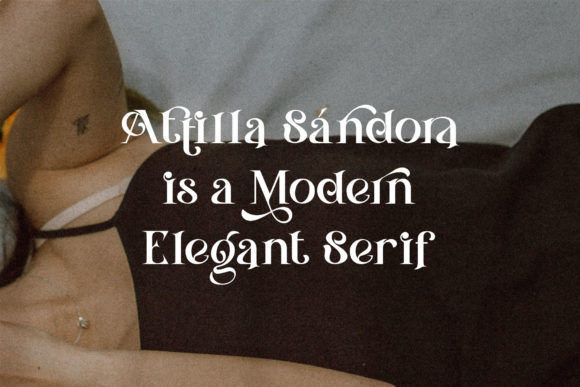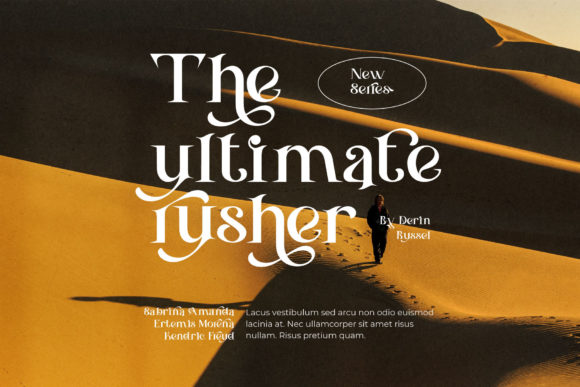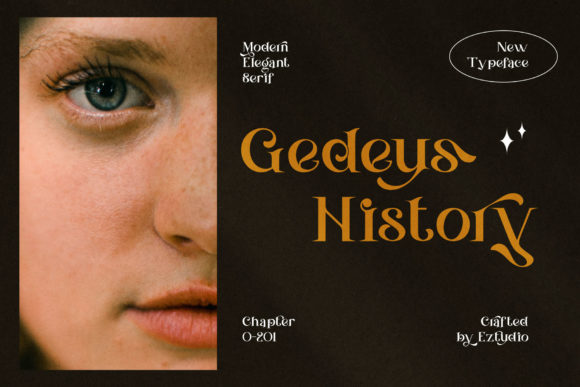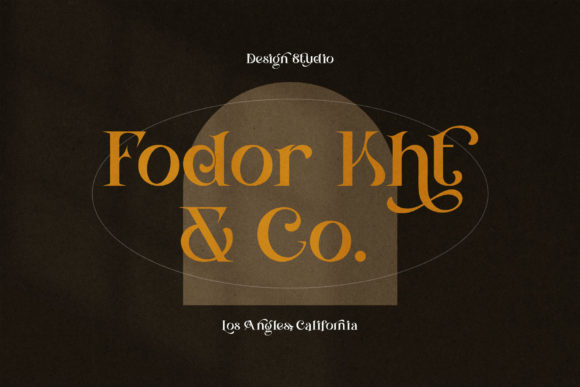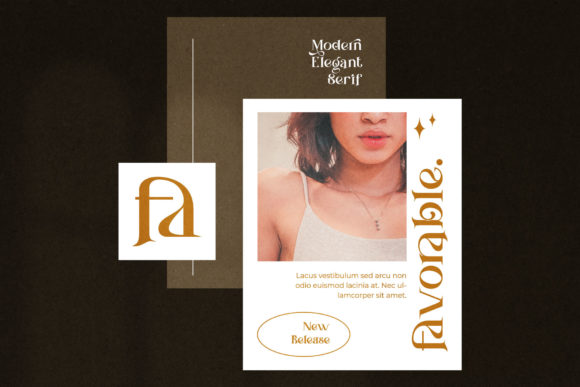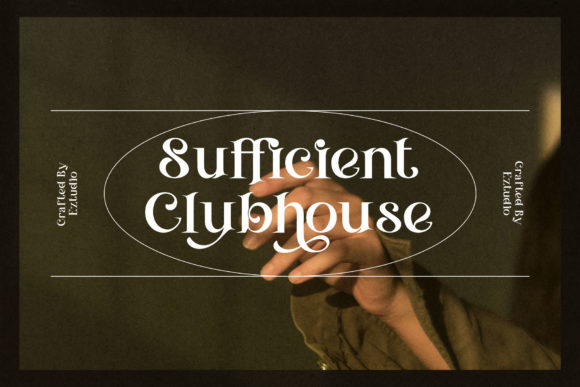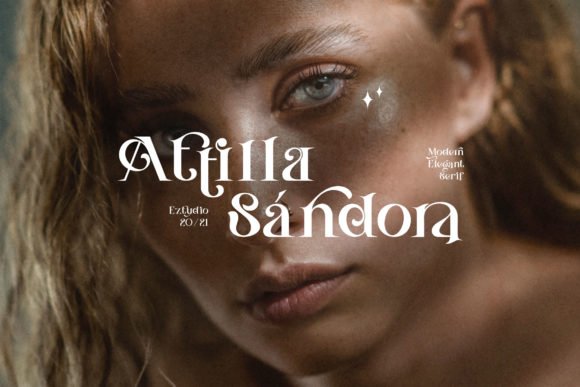
Unleashing Creativity with Attilla Sándora Font
Have you ever stared at a blank canvas, a blank page, or even a blank screen, waiting for inspiration to strike? It’s that moment when the world around you fades away, and all that’s left is the thrill of creating something new. It’s a feeling that drives designers, artists, and writers to push the boundaries of their craft.
When that spark of creativity hits, you need a font that can keep up. That’s where Attilla Sándora Font comes in – a modern, elegant, and highly detailed serif font that’s as imposing as it is beautiful. Its uniquely shaped letters make it the perfect choice for designers who want to add a distinct touch to their creations.
With Attilla Sándora Font, the possibilities are endless. Whether you’re designing a book cover, a logo, or a website, this font is sure to make a statement. Its versatility and sophistication make it a valuable tool for designers who want to take their work to the next level.
Attilla Sándora Font Key Features
- Unique Characteristics: Attilla Sándora is a unique, hand-drawn font with a distinctive, elegant feel and a wide range of stylistic options.
- Font Metrics: The font’s x-height, cap height, and ascender/descender metrics are carefully designed to ensure optimal readability and legibility.
Review of Attilla Sándora Font
Overall, I’m impressed with the Attilla Sándora font. ✨ The intricate details and elegant design make it a great choice for various typography projects. It’s clear that the designer put a lot of effort into creating a unique and beautiful font.
- The font’s flair for ornate details ✨ is a great addition to any design. It adds a touch of sophistication and luxury to the text.
- The font’s versatility is impressive, as it can be used for a wide range of designs, from formal invitations to elegant book covers.
- The font’s legibility is also noteworthy, making it a great choice for longer texts.
However, there are a few limitations to consider ⚠️. The font may not be the best choice for designs that require a more minimalist or modern look, as it has a distinctly vintage feel.
- The font may not be as readable in smaller sizes or when used in bold weights.
- The font’s complexity may make it difficult to pair with other fonts, especially those with simpler designs.
Overall, I would recommend the Attilla Sándora font for designers looking for a unique and elegant typography solution. While it may have some limitations, its beauty and versatility make it a great addition to any design project.
Tips: Use Attilla Sándora Font for titles and headings to create a strong visual impact.
Tips: Use Attilla Sándora Font to create a unique and eye-catching design in your Adobe projects.
Tips: Use Attilla Sándora Font for presentations and documents to add a touch of elegance and sophistication.